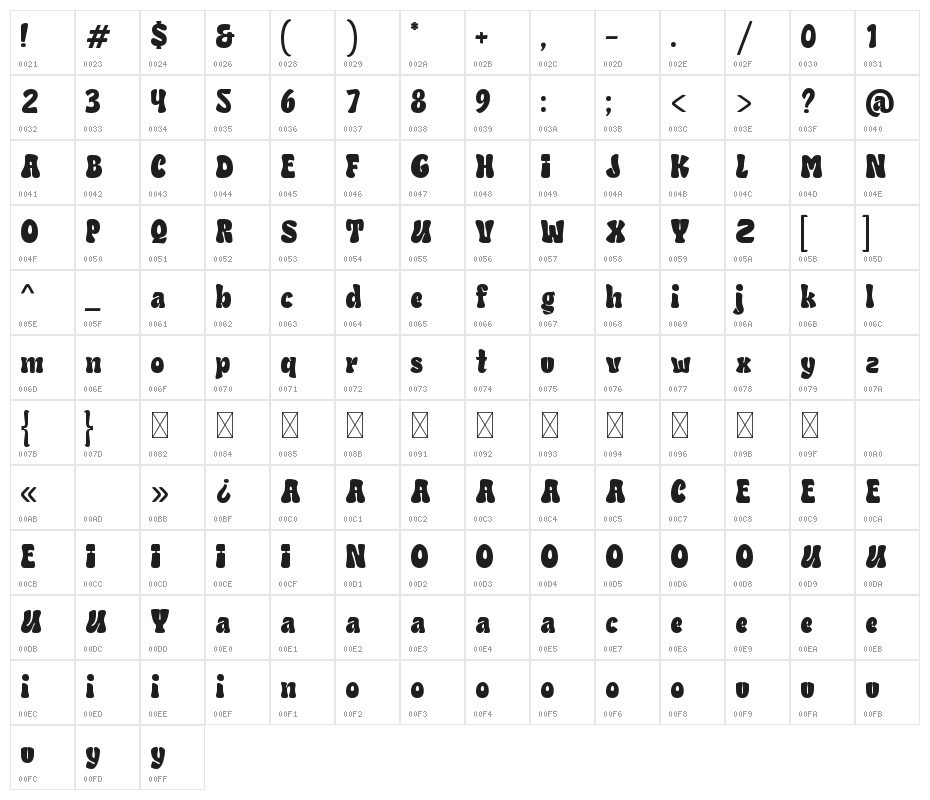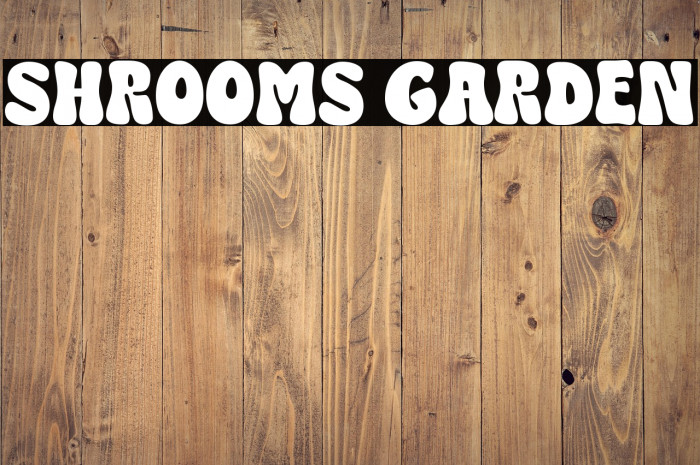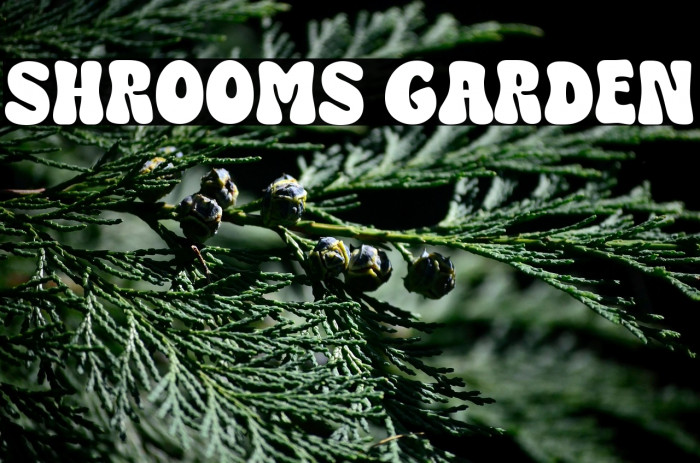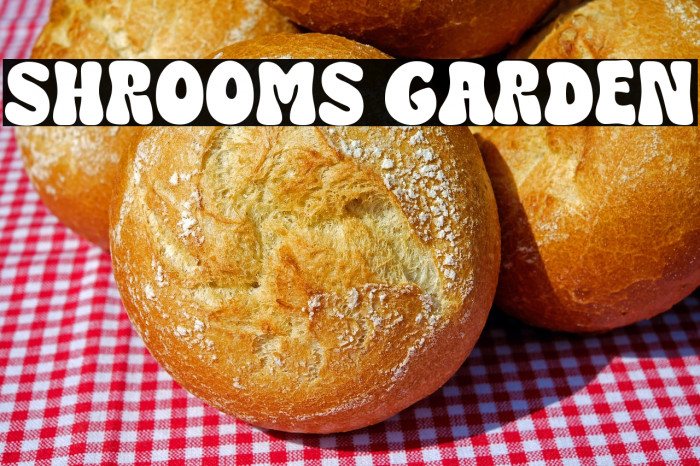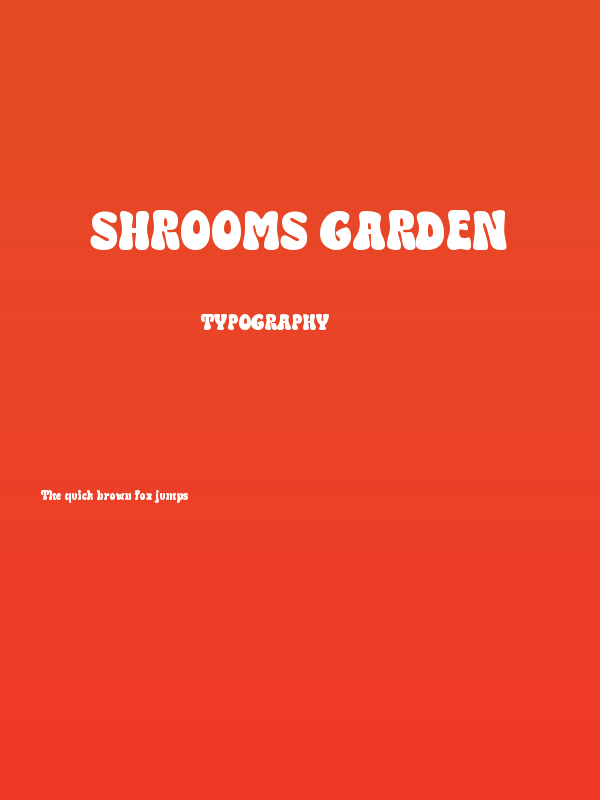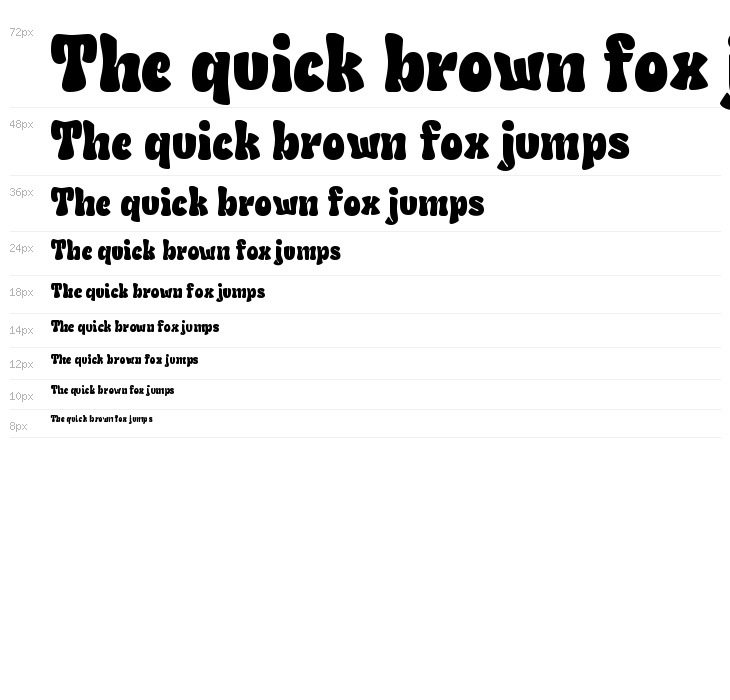
SHROOMS GARDEN Font
SHROOMS GARDEN Description
This font features a playful and bold design with rounded, bubbly characters that exude a sense of fun and whimsy. The letters are thick and have a soft, organic feel, reminiscent of cartoonish or psychedelic styles. The uppercase and lowercase letters maintain a consistent weight, contributing to a cohesive appearance. The numbers and special characters follow the same playful aesthetic, making the font versatile for various creative applications. Its unique style makes it stand out, ideal for projects that require a touch of personality and flair.